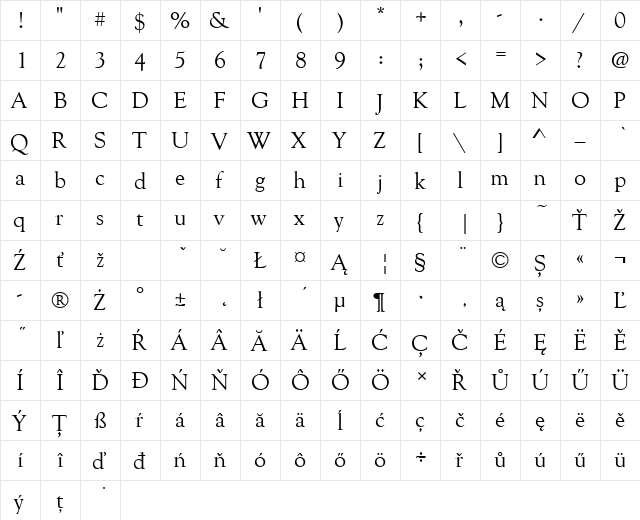
GoudyOldStyTEE Regular
GoudyOldStyTEE offers clean, dependable letterforms without strong stylistic allegiance, making it a practical choice for designers who need flexibility.